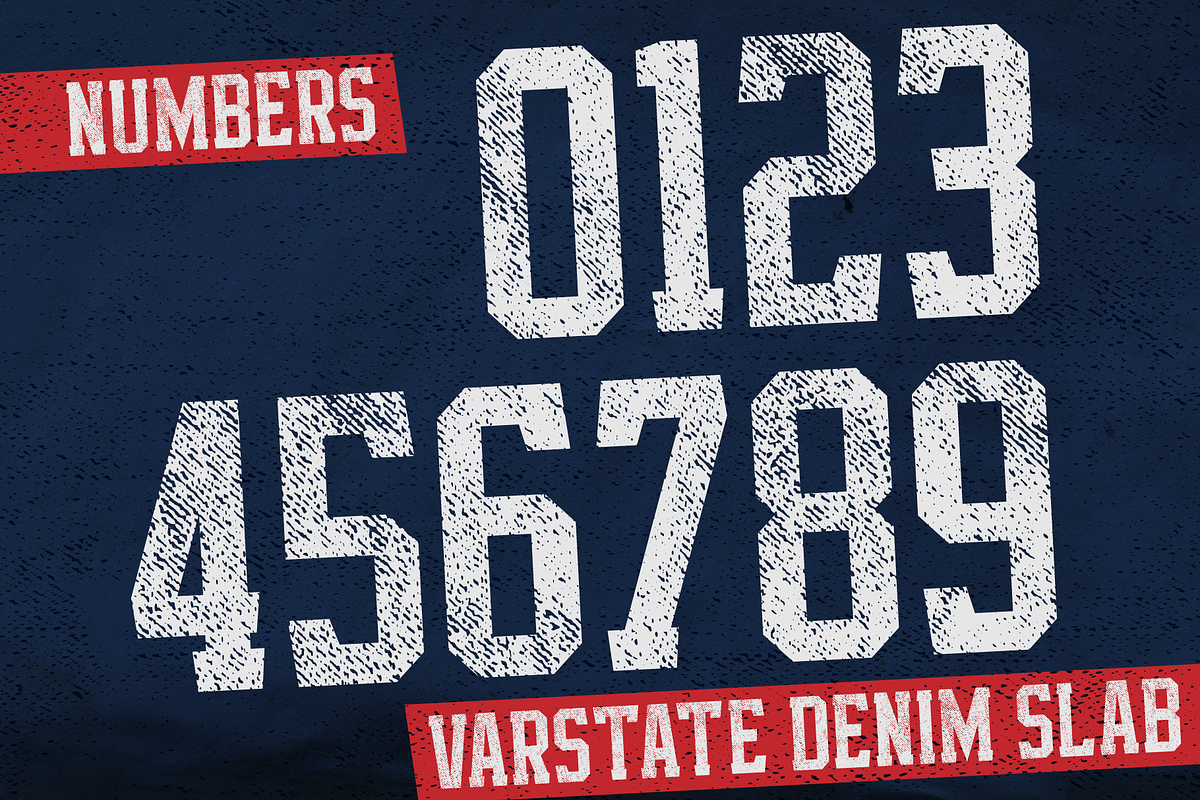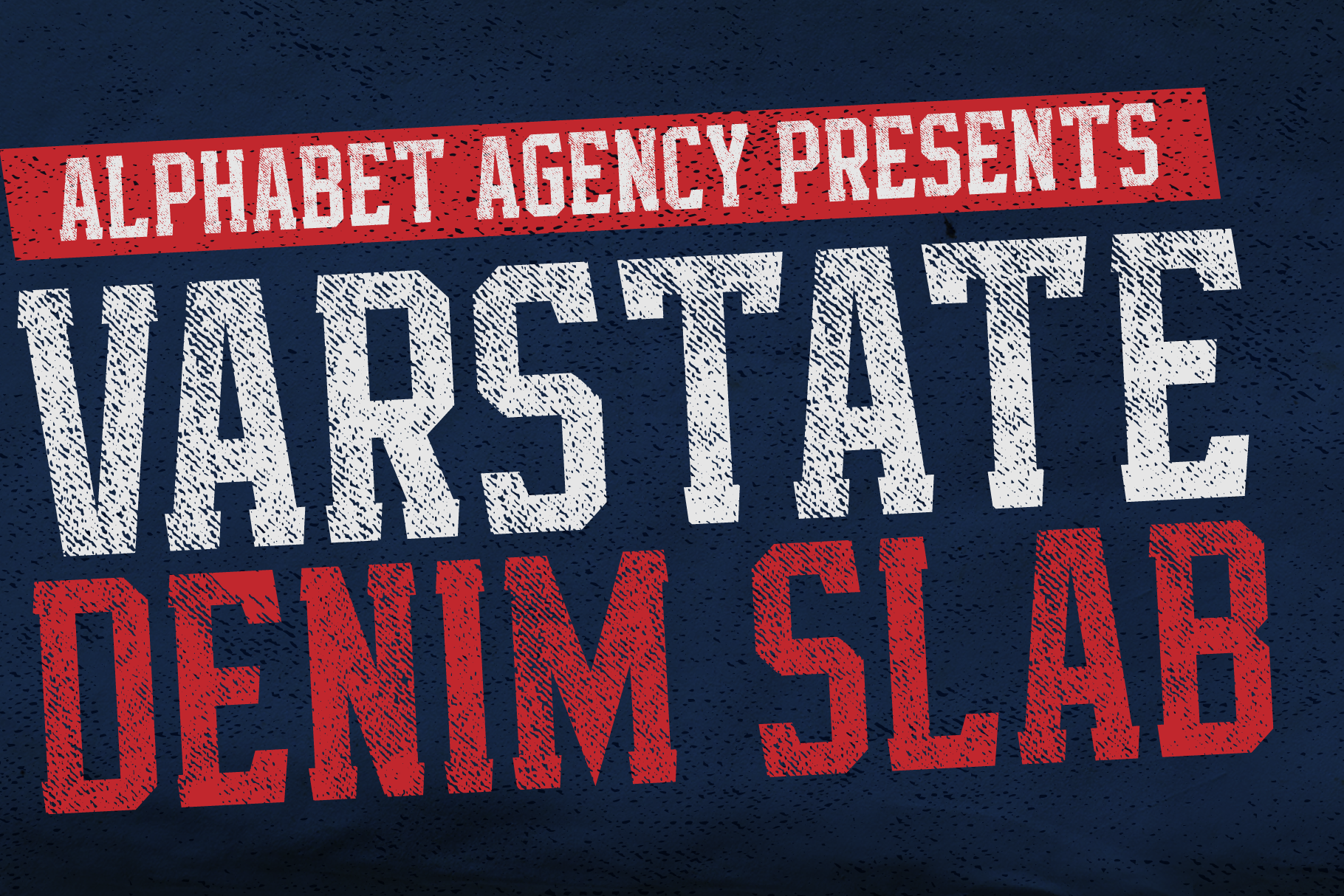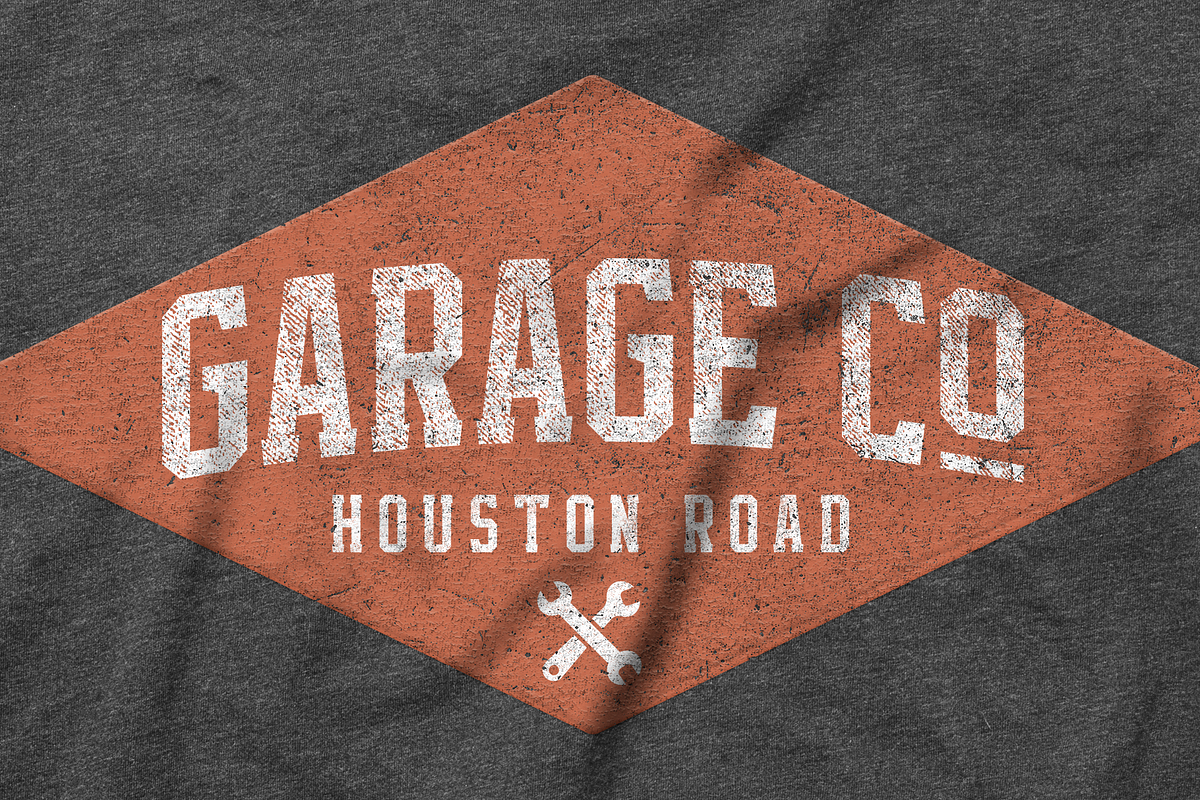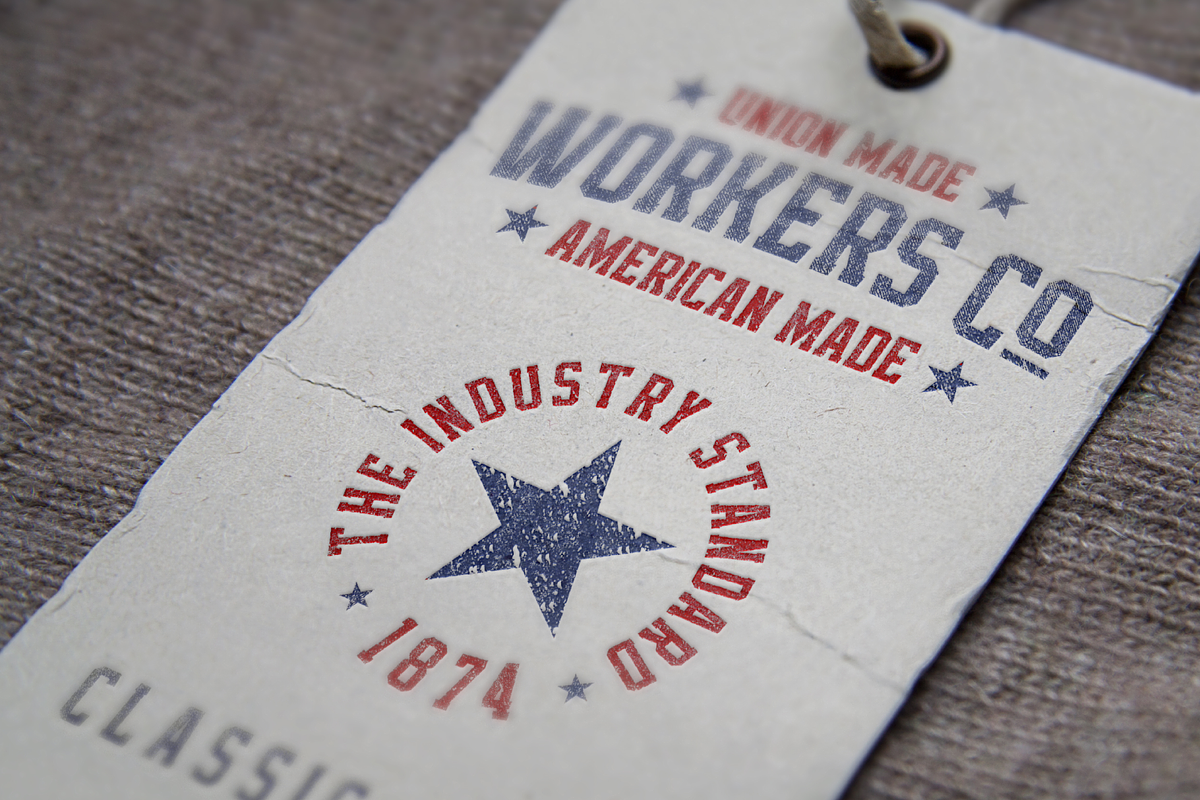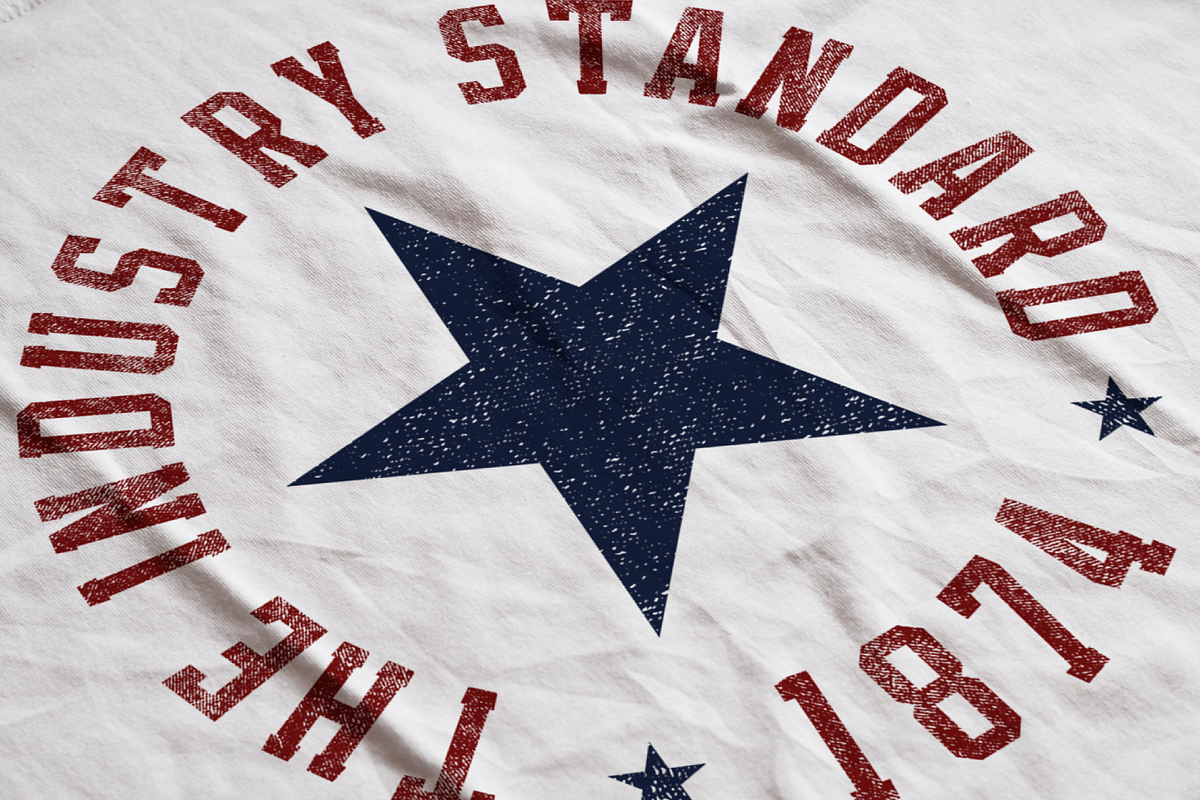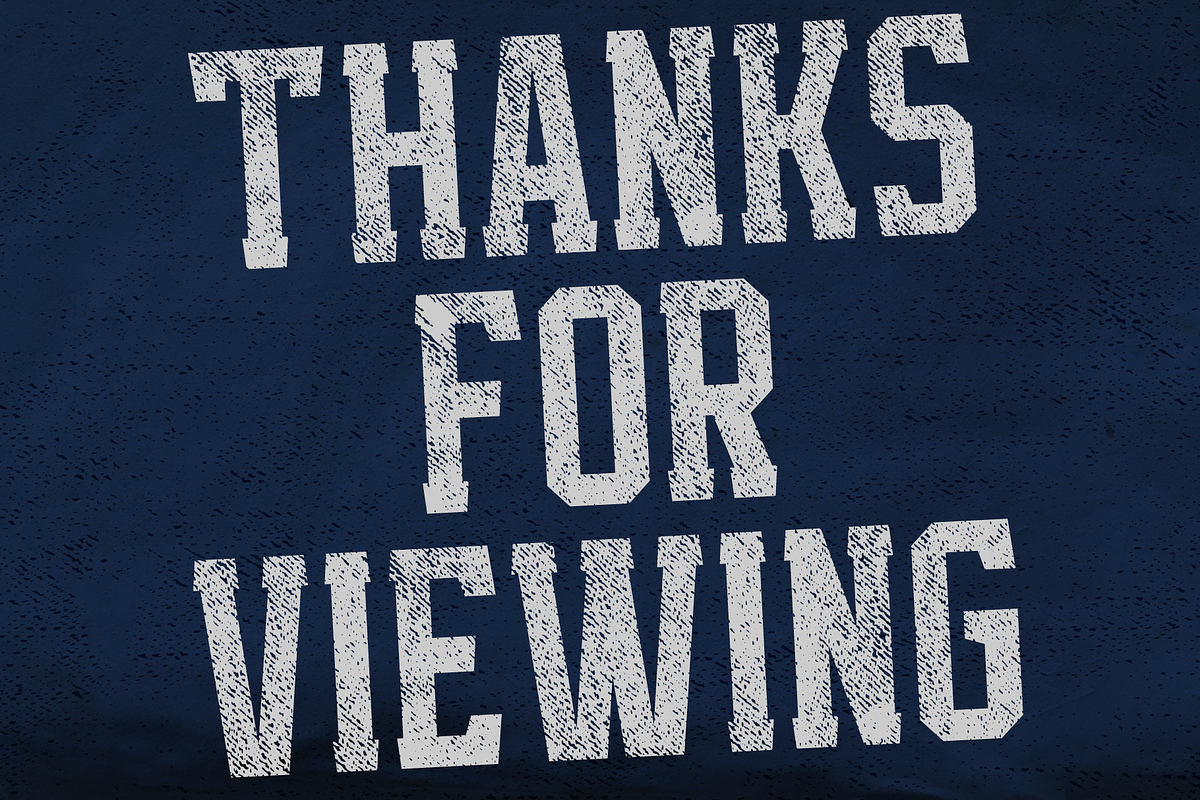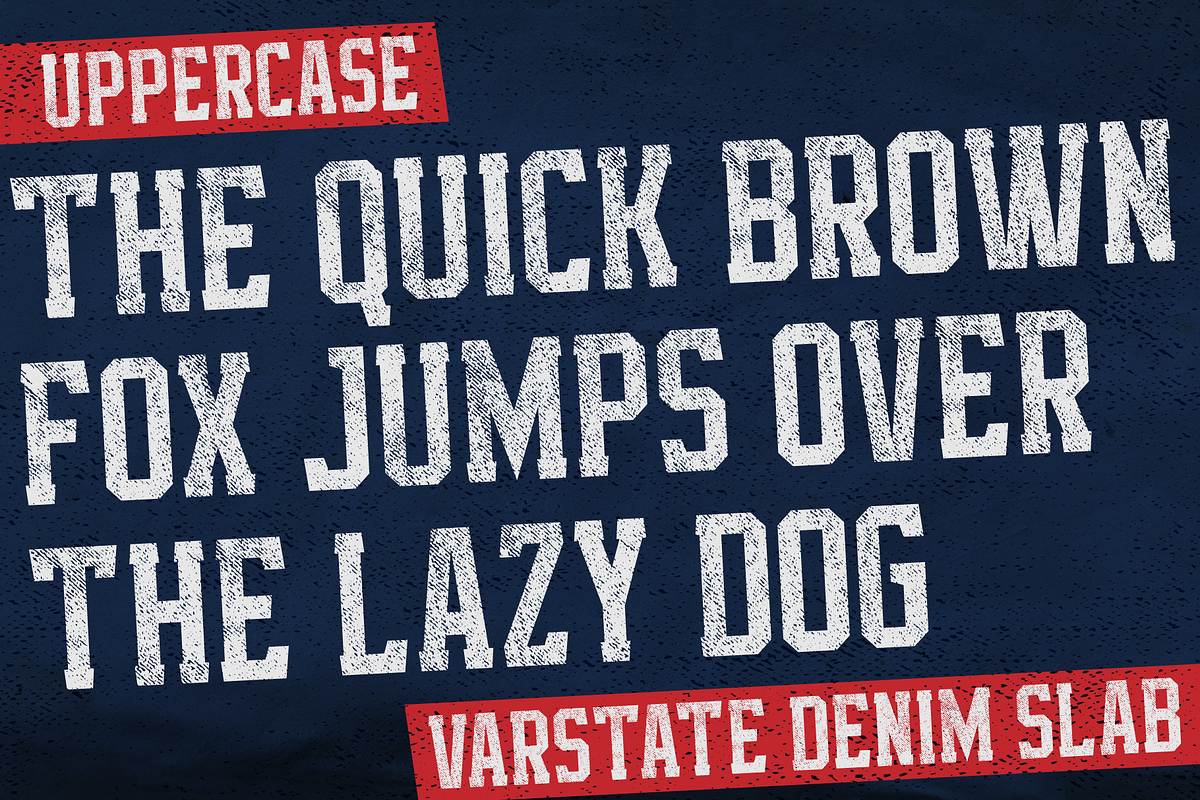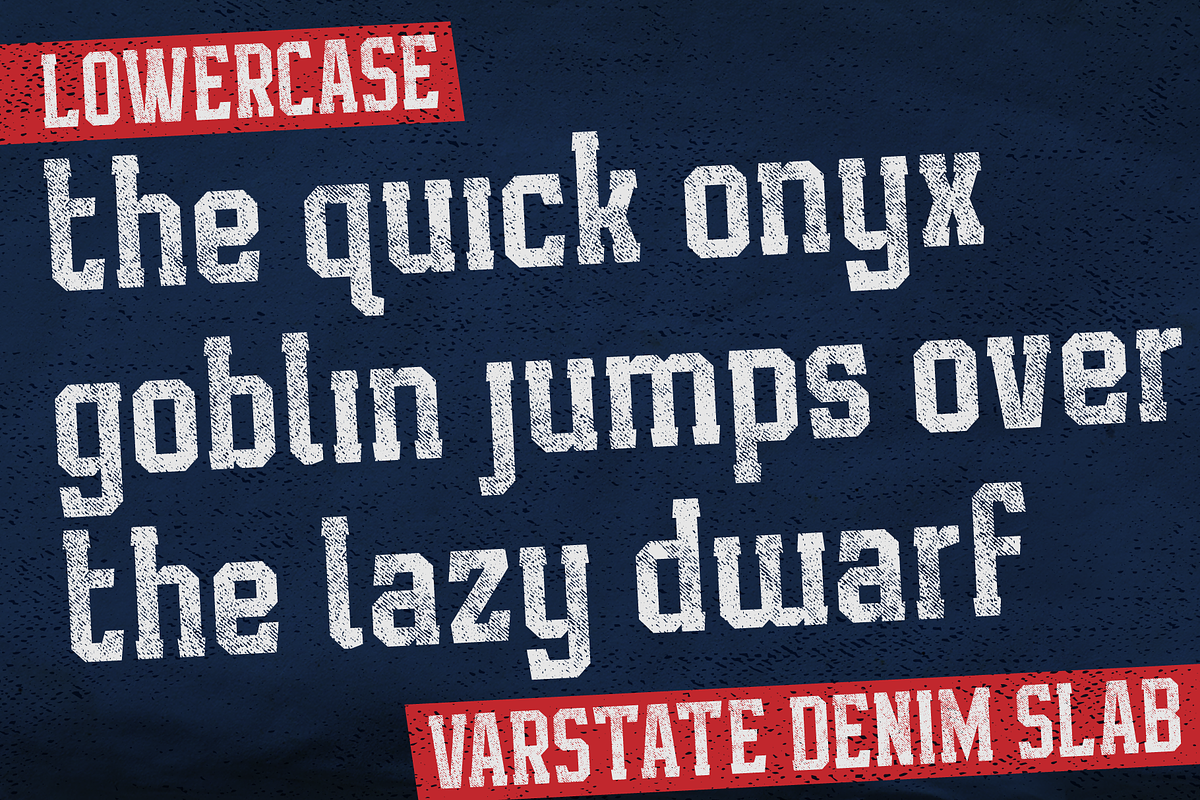
Varstate Denim Slab Font
Varstate Denim Slab font is inspired by the varsity team name lettering often seen on apparel such as Letterman jackets, t-shirts and hoodies. The font has a denim texture pattern incorporated into the characters.
The fonts can be used across a variety of themes and works particularly well in menswear/fashion genres.
The font includes Latin basic characters which includes uppercase, lowercase, numbers, punctuation and much more.